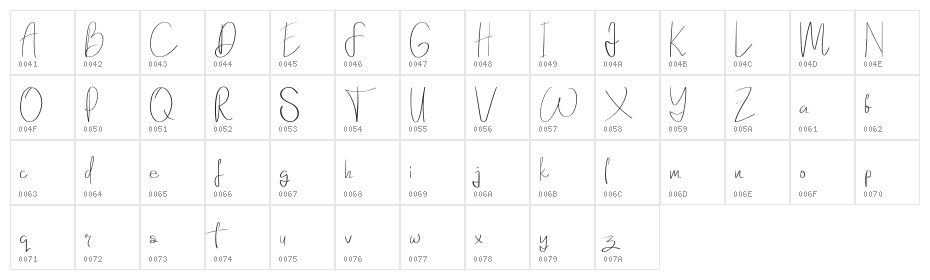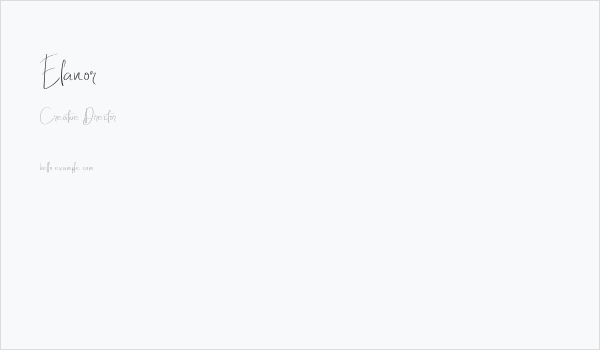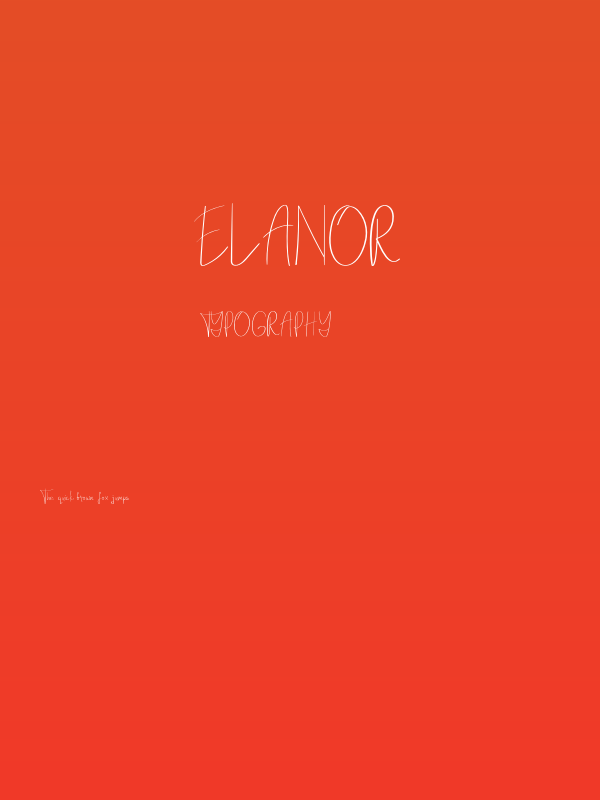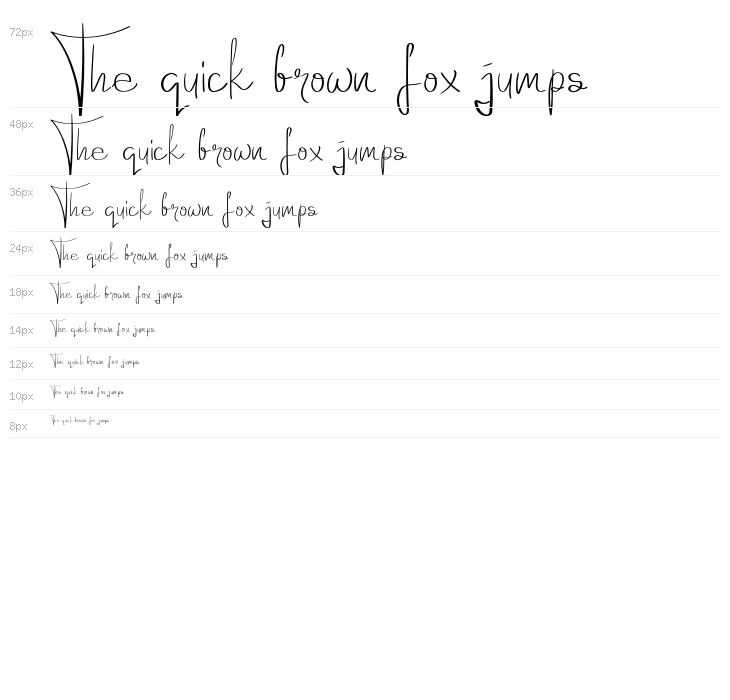
Elanor Font
Elanor Description
This font exudes a whimsical and artistic flair, characterized by its flowing, cursive-like strokes that create a sense of movement and elegance. The uppercase letters are tall and slender, with varying stroke widths that add a dynamic quality. The lowercase letters maintain a consistent style, with playful loops and curves that enhance its handwritten appeal. The overall design is both modern and expressive, making it suitable for creative projects that require a personal touch. The font's unique style is further accentuated by its irregular character shapes, which contribute to its distinctive and charming appearance.